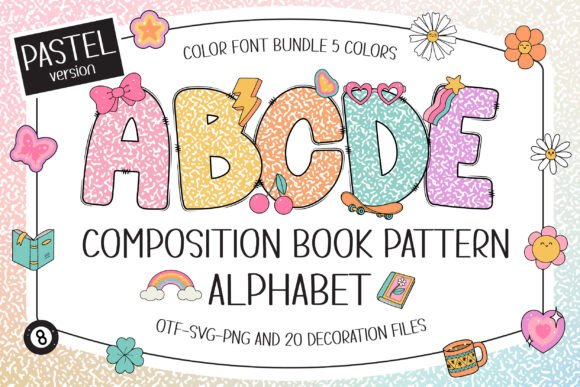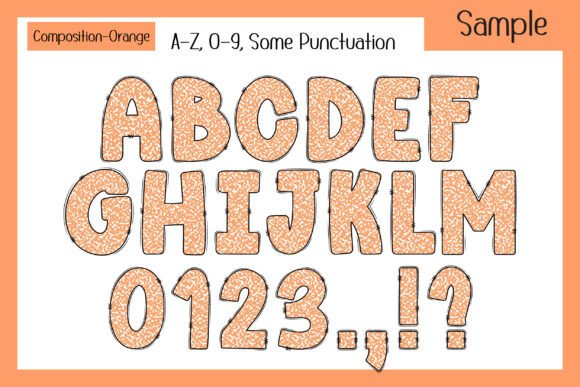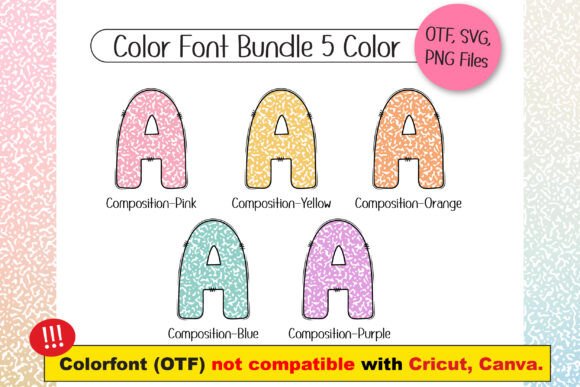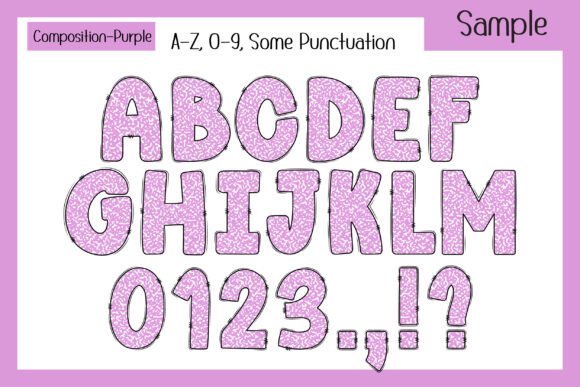
Composition Book Pattern Pastel Font
Introducing “Composition Book Pattern Alphabet Pastel” in a ‘pastel color version’ with five vibrant color options, combining the timeless black composition book pattern with 20 Y2K-style doodle cliparts for added charm. This versatile font is ideal for classroom media, learning materials, scrapbooks, posters, personalized gifts, classroom decorations, custom DIY craft projects, T-shirt and merch sublimation, personalized names, and more. “Composition Book Pattern Alphabet Pastel” brings a fun, nostalgic twist to your creative projects, perfect for educational and personalized designs alike.